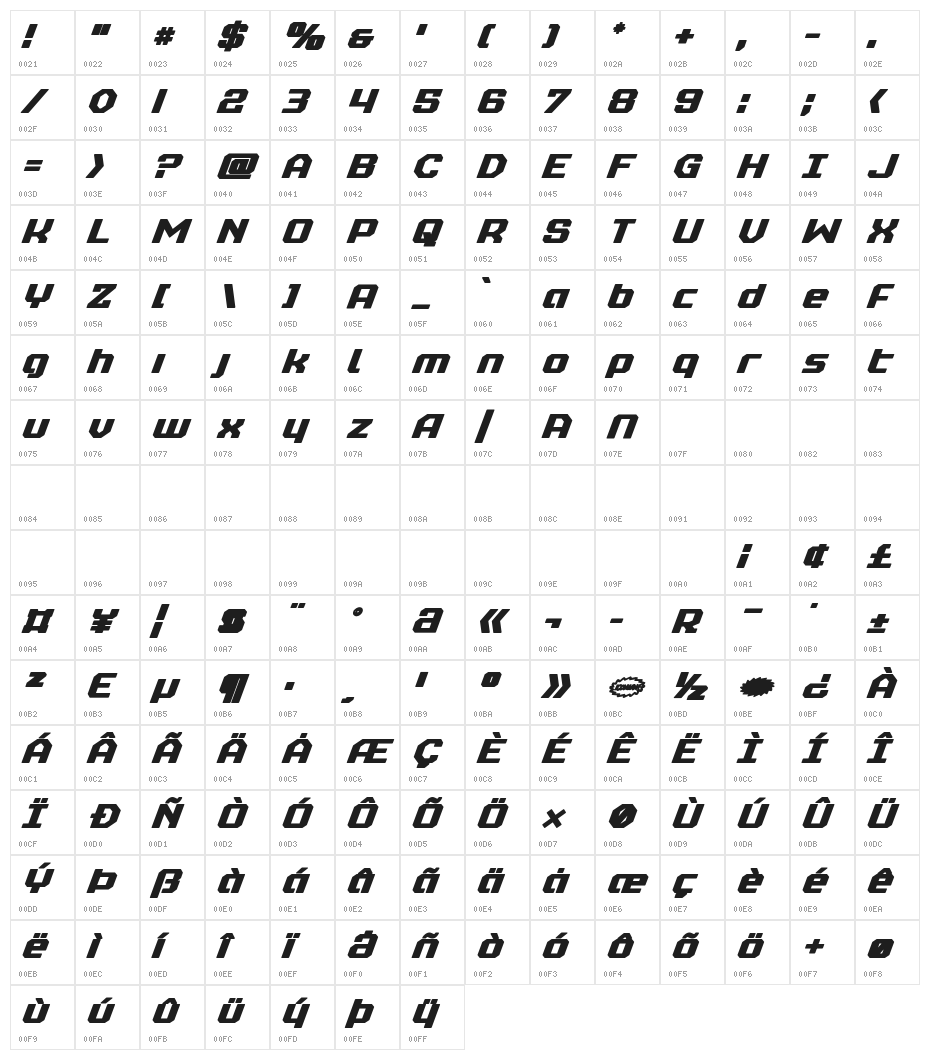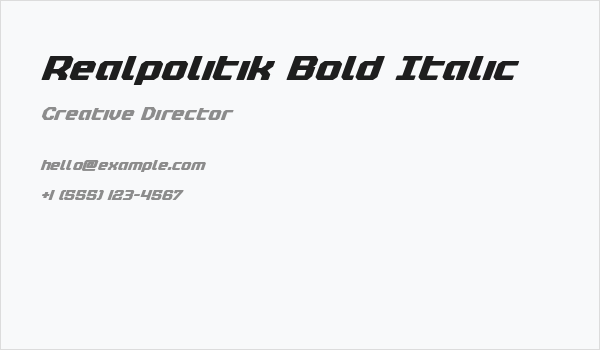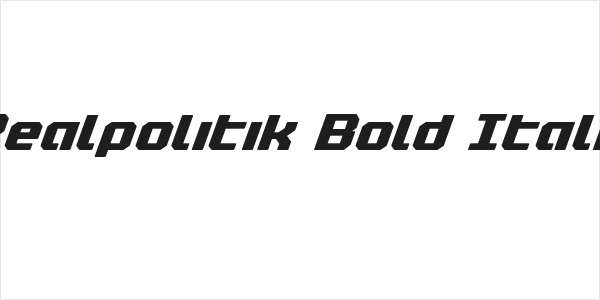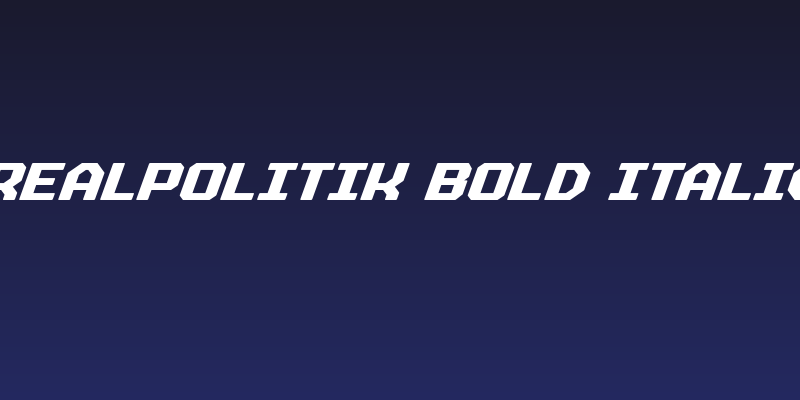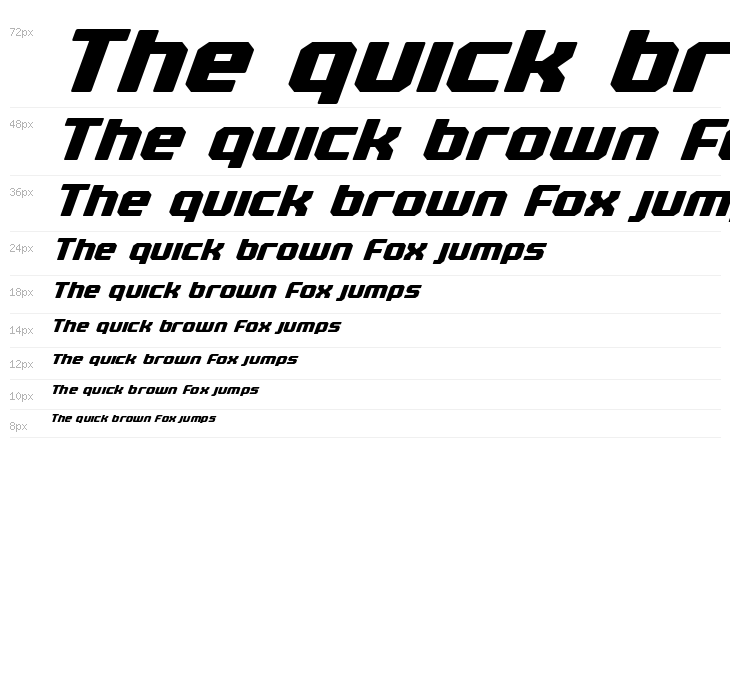
Realpolitik Bold Italic Font
Realpolitik Bold Italic Description
This font features a bold and italicized style with a strong geometric structure, characterized by sharp angles and a dynamic slant. The uppercase and lowercase letters maintain a consistent weight, providing a sense of uniformity and strength. The numbers and special characters follow the same bold and angular design, making them easily distinguishable. The overall appearance is modern and assertive, suitable for making a strong visual impact. The italic slant adds a sense of motion and urgency, enhancing its dynamic presence.
| Proposed Projects | Ideal for branding, sports team logos, advertising campaigns, and editorial headlines where a strong and modern look is desired. |